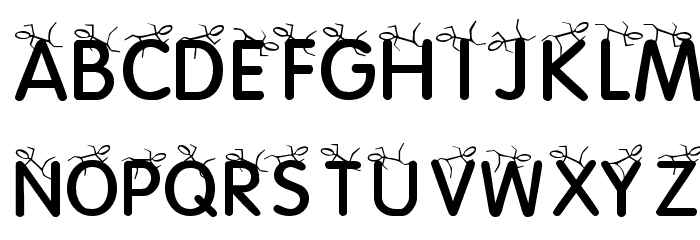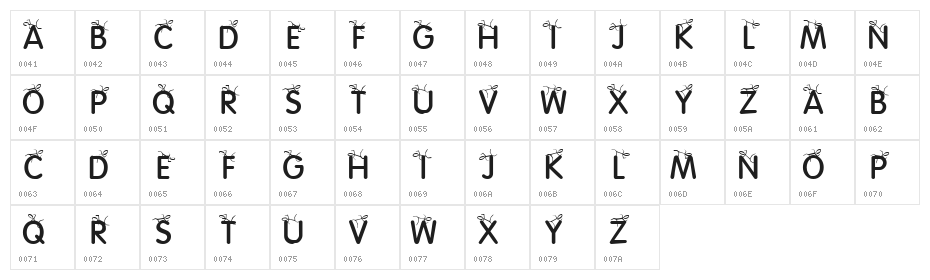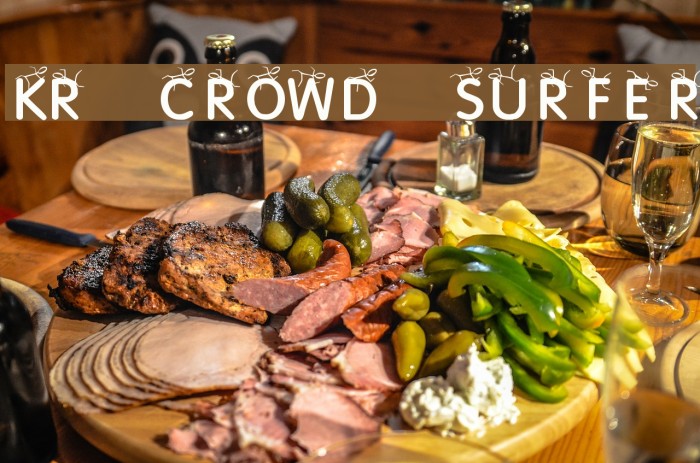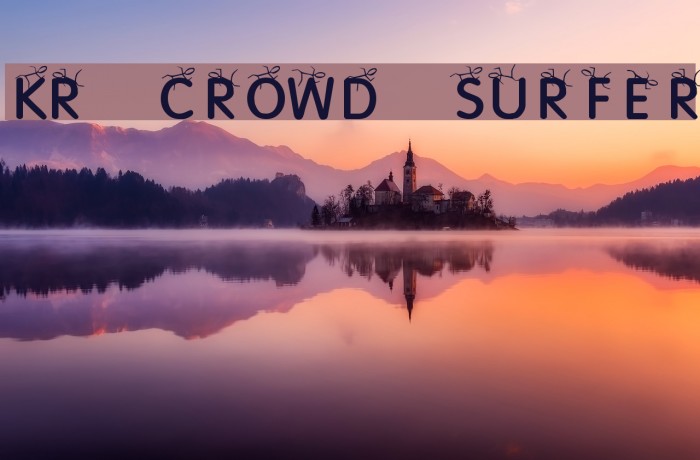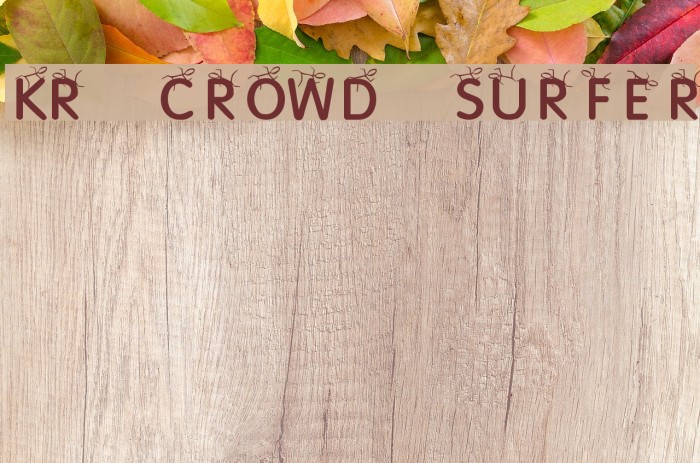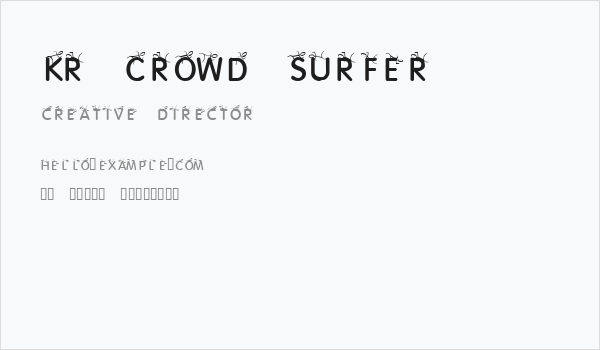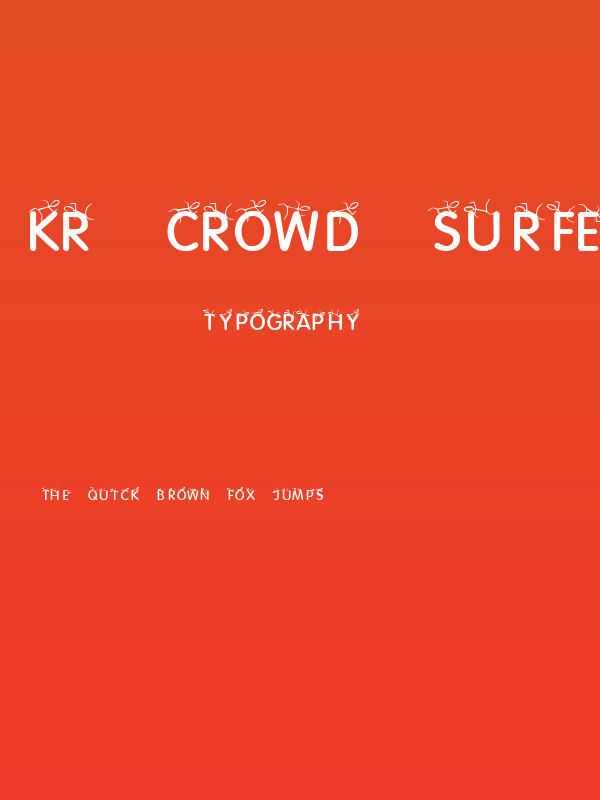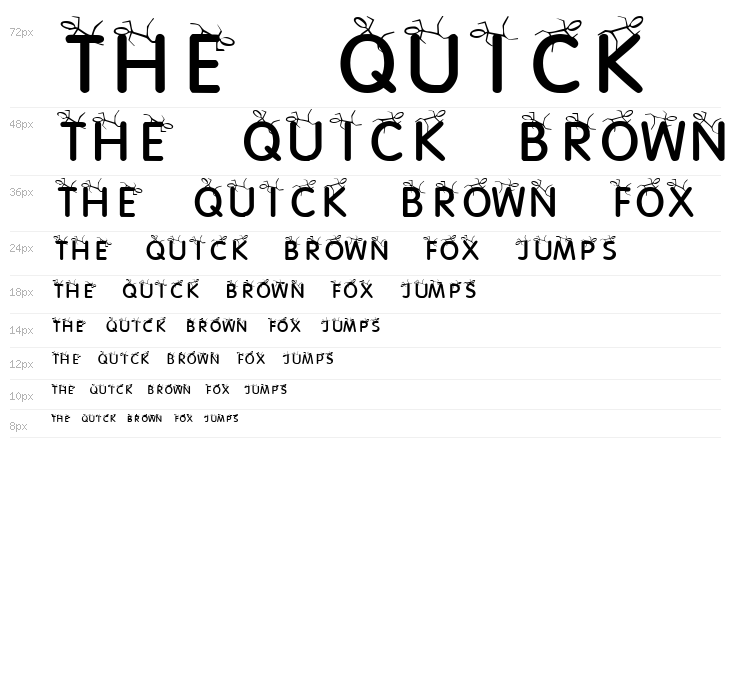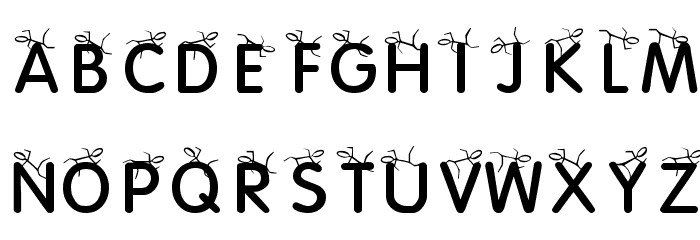
KR Crowd Surfer Font
KR Crowd Surfer Description
This font features a playful and whimsical design, characterized by the addition of small stick figures surfing on top of each letter. The uppercase letters are bold and rounded, providing a solid base for the decorative elements. The lowercase letters maintain the same playful theme, with consistent thickness and style. The numbers and special characters follow suit, ensuring a cohesive look throughout. This font's unique style makes it stand out, offering a fun and engaging visual experience.
| Proposed Projects | Ideal for children's books, playful branding, event posters, and creative invitations. |